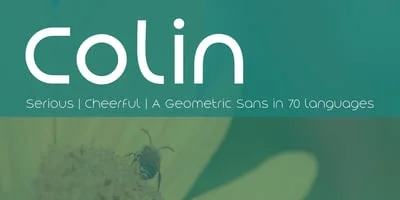
Colin Font
Colin Front
Colin Front is perfect for logo design, branding projects, poster creation, book covers, website headers, business cards, packaging design, and social media graphics. This versatile typeface works exceptionally well in both digital and print media applications.
What makes Colin Front exciting is its unique character design that combines modern aesthetics with classic readability. The font features distinctive letterforms that capture attention while maintaining excellent legibility across various sizes. Its contemporary style makes it ideal for creative professionals seeking to make a bold statement in their design projects.
Colin Front font family includes multiple weights and styles, offering designers flexibility in their creative work. The family typically consists of regular, bold, light, and italic variations, allowing for comprehensive typographic hierarchy in any design project.
Whether you're working on corporate branding, editorial design, or creative advertising campaigns, Colin Front provides the perfect solution for designers who want to elevate their typography game. This font's versatility and professional appearance make it an essential addition to any designer's font library.